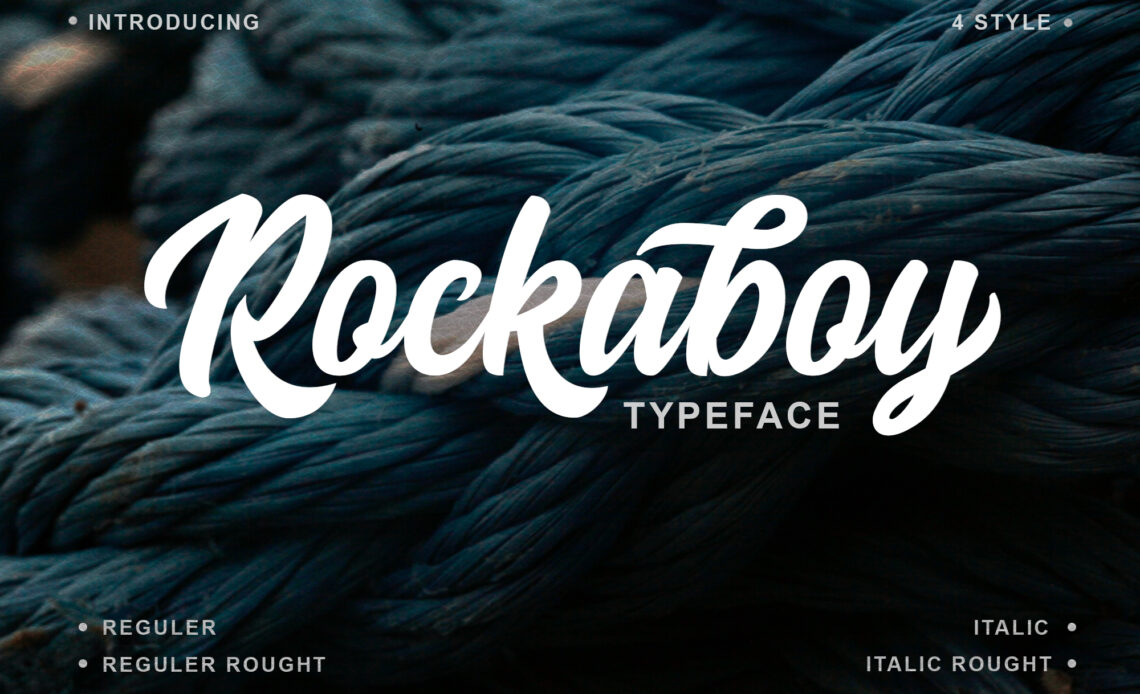
Rockaboy Font
Introducing Rockaboy Font, a script font family that exudes vintage charm with a modern twist. Bold, brazen, and classically appealing, Rockaboy makes a statement wherever it's used. Unleash your creativity and add a touch of timeless elegance to your designs.
With its captivating curves and distinct personality, Rockaboy is the perfect choice for creating eye-catching headlines, logos, posters, and social media graphics. Transport your audience back in time with its retro vibes or infuse your designs with a contemporary edge - the possibilities are endless.
Rockaboy's versatility shines through its wide range of applications. Whether you're crafting a wedding invitation that exudes romance or designing a product label that demands attention, Rockaboy delivers. Its vintage flair adds a touch of nostalgia, while its modern sensibility ensures your designs stay current and relevant.
Dive into the world of Rockaboy and let your imagination run wild. Experience the thrill of creating designs that resonate with audiences, leaving a lasting impression. Embrace the allure of vintage charm and the sophistication of modern style, all rolled into one remarkable font family.
Don't settle for ordinary fonts. Elevate your designs with Rockaboy. Its bold personality and timeless appeal will transform your creative visions into captivating realities. Make a statement, leave an impact, and create designs that stand the test of time with Rockaboy.